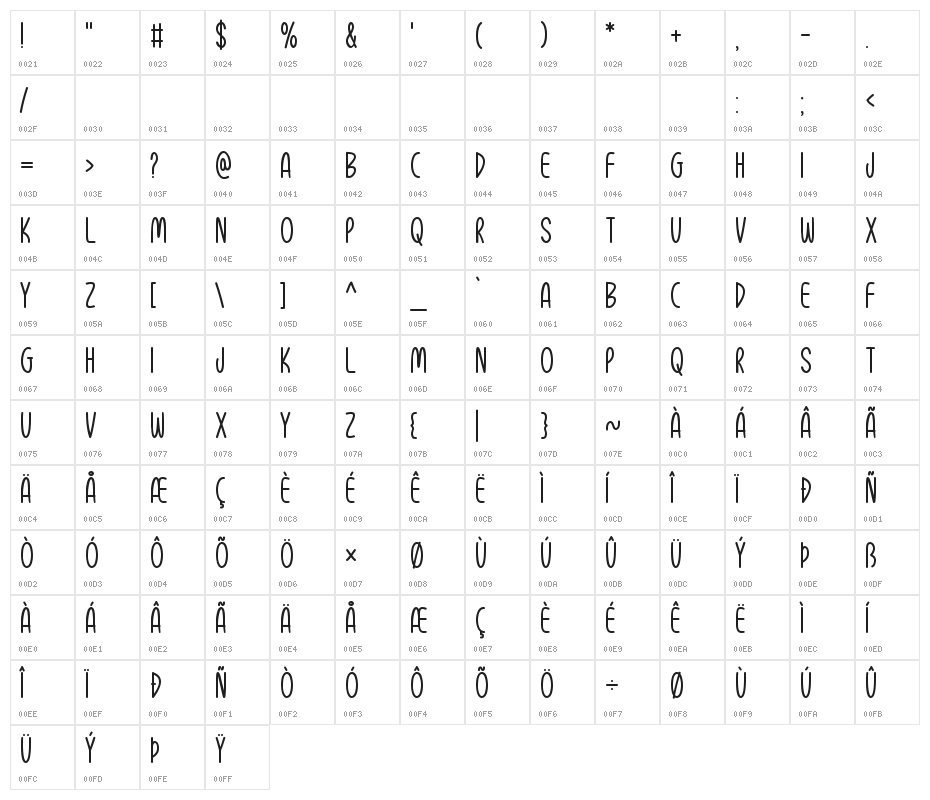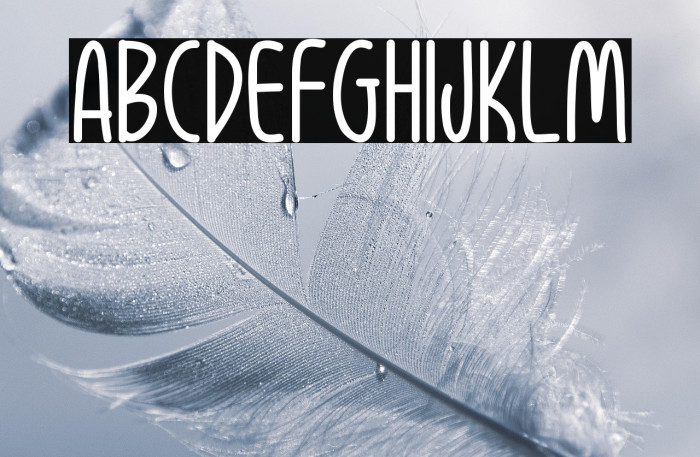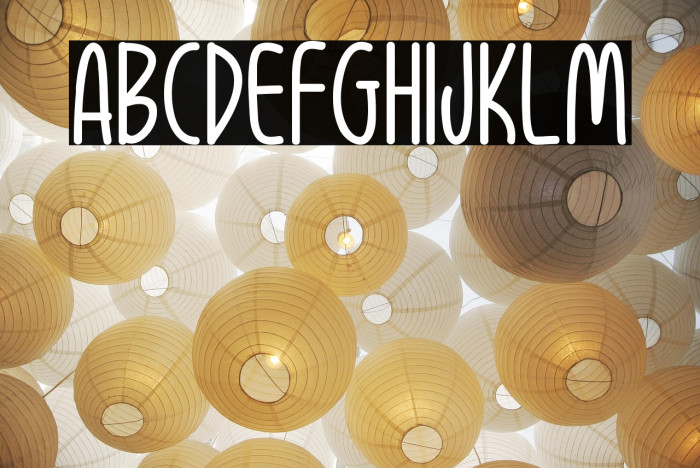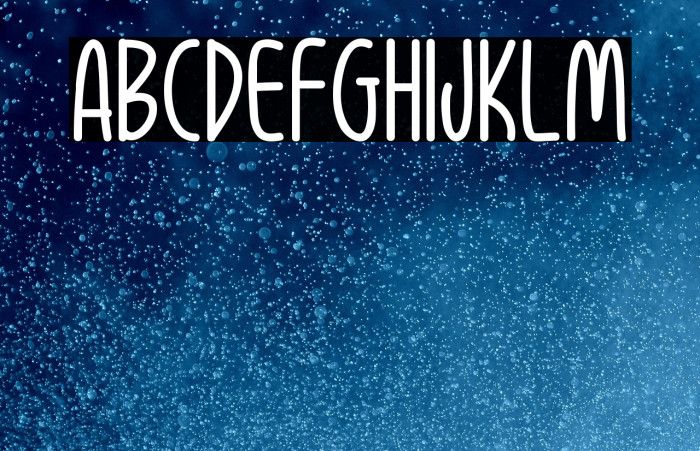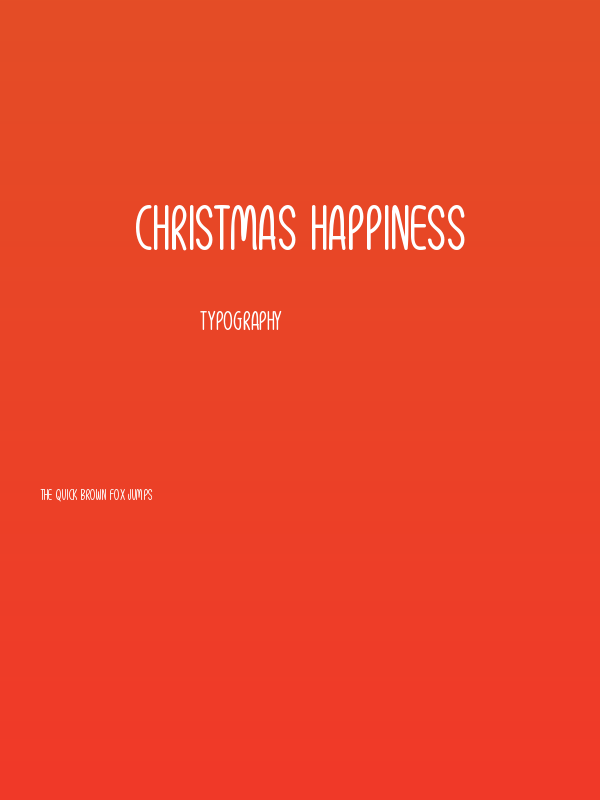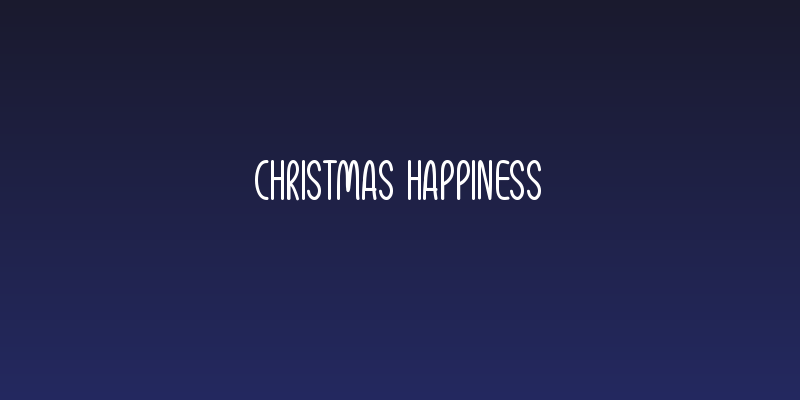
Christmas Happiness Font
Christmas Happiness Description
A playful and rounded handwritten font with a casual and friendly appearance.
| Proposed Projects | Greeting cards, invitations, children's books. |